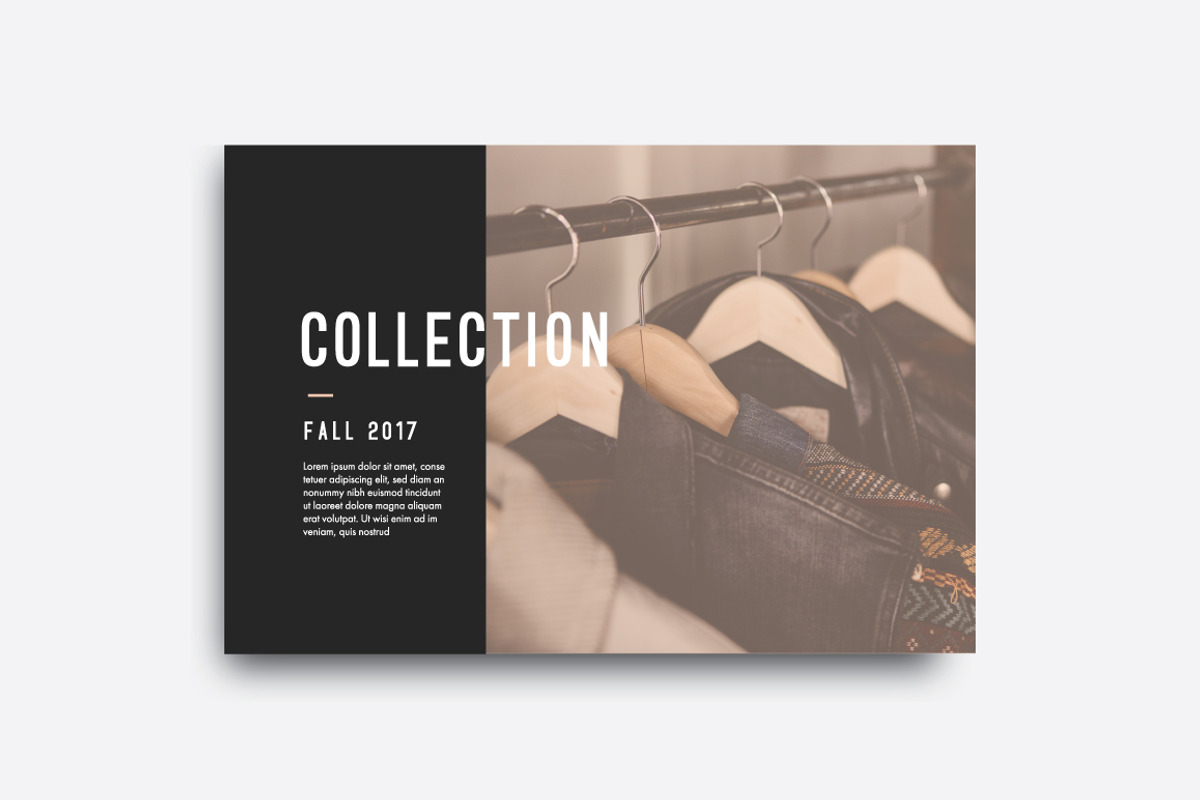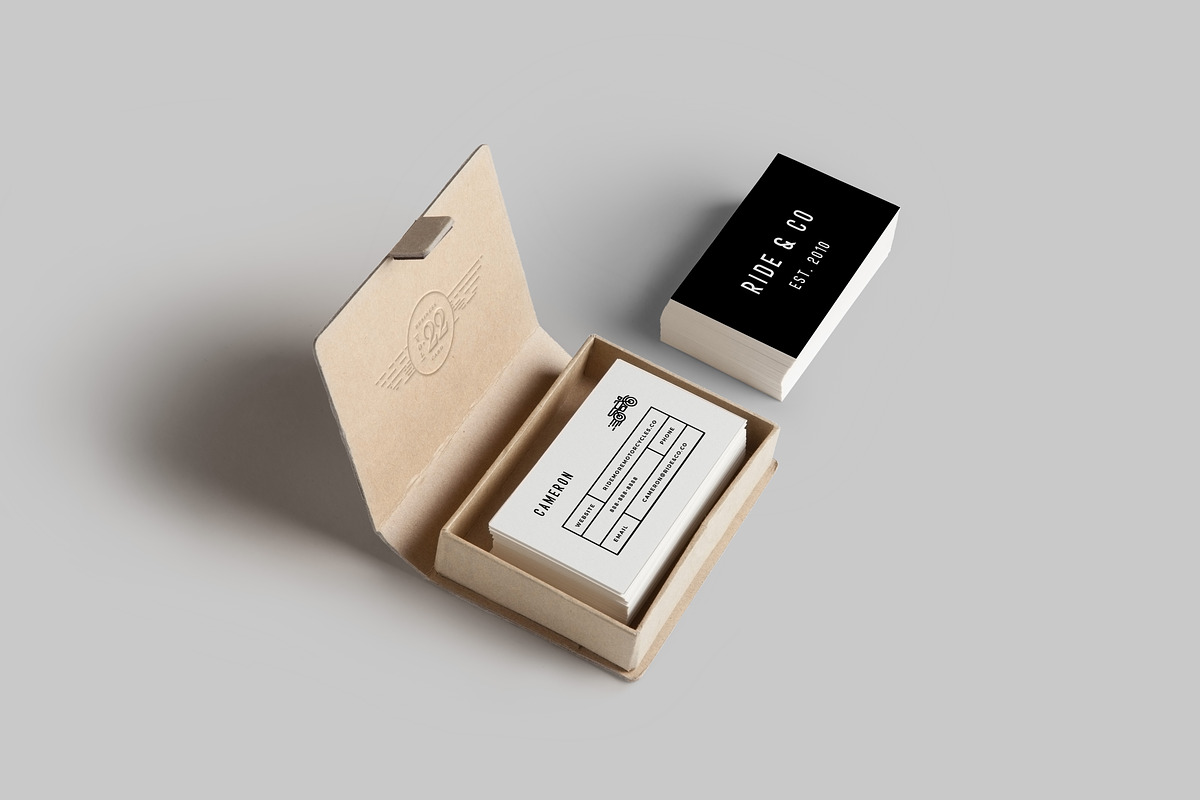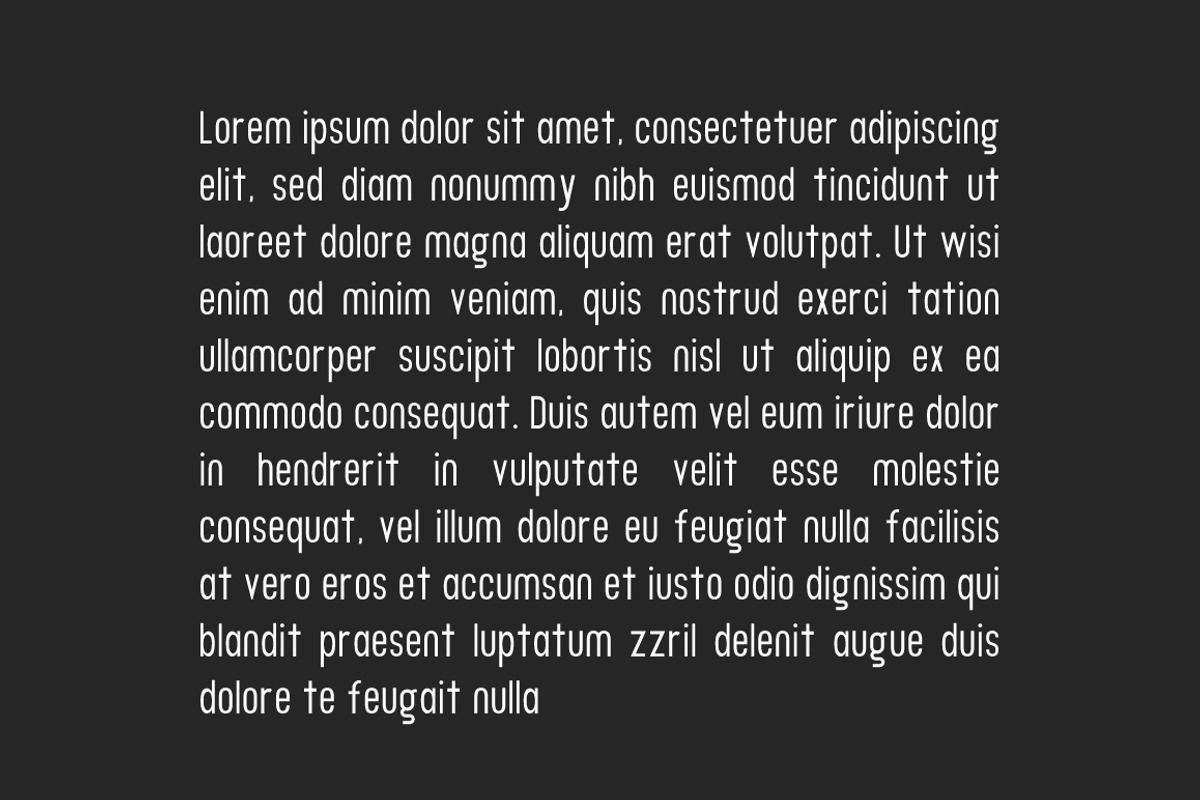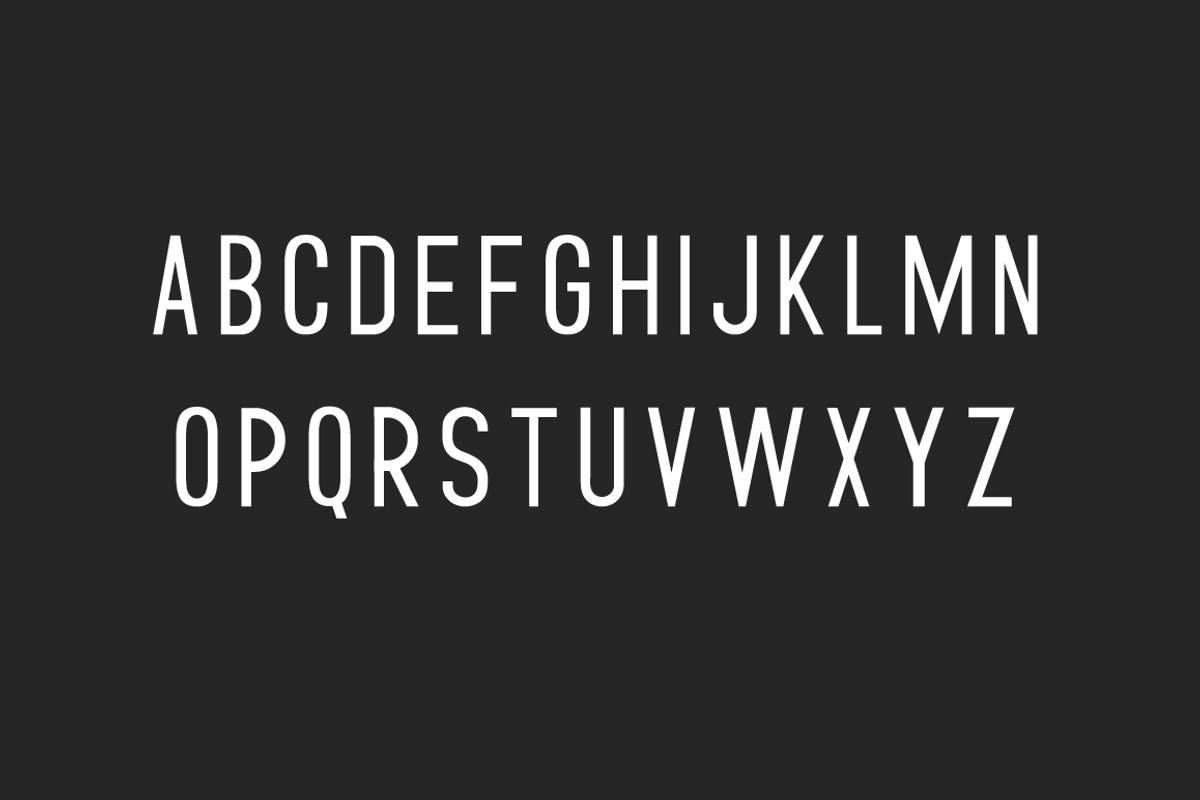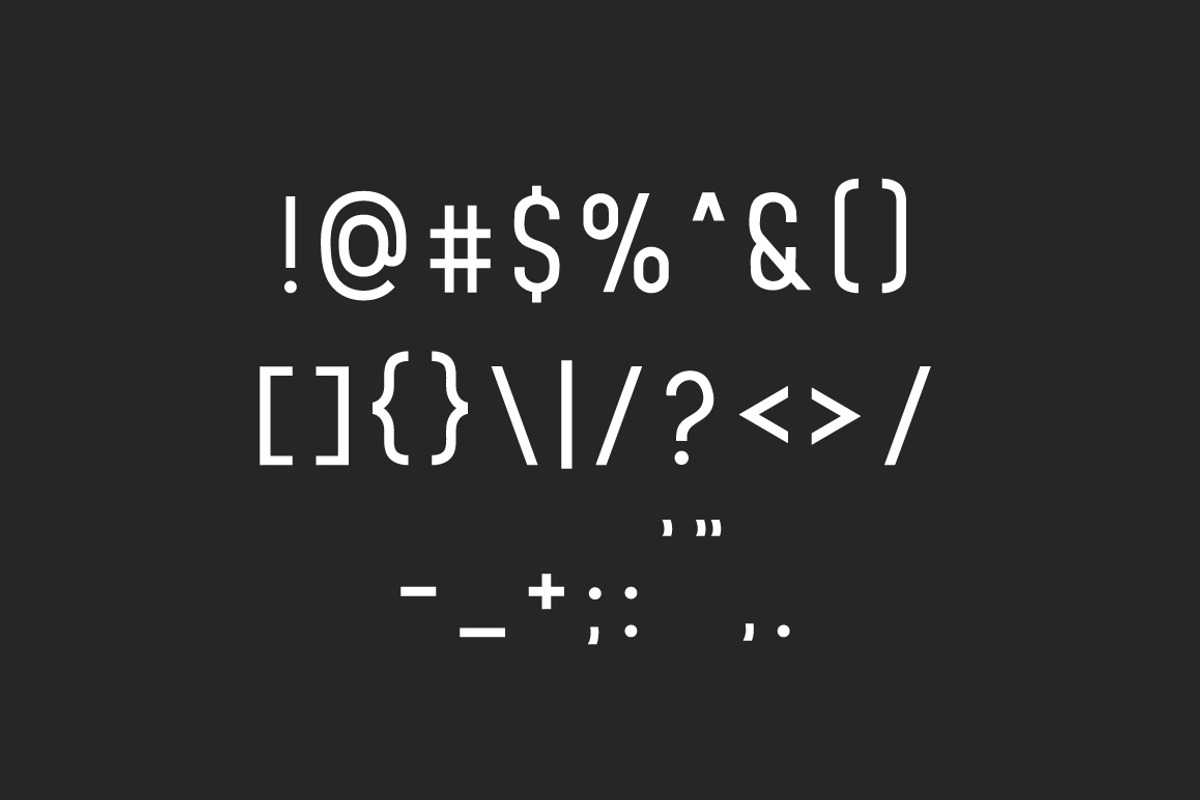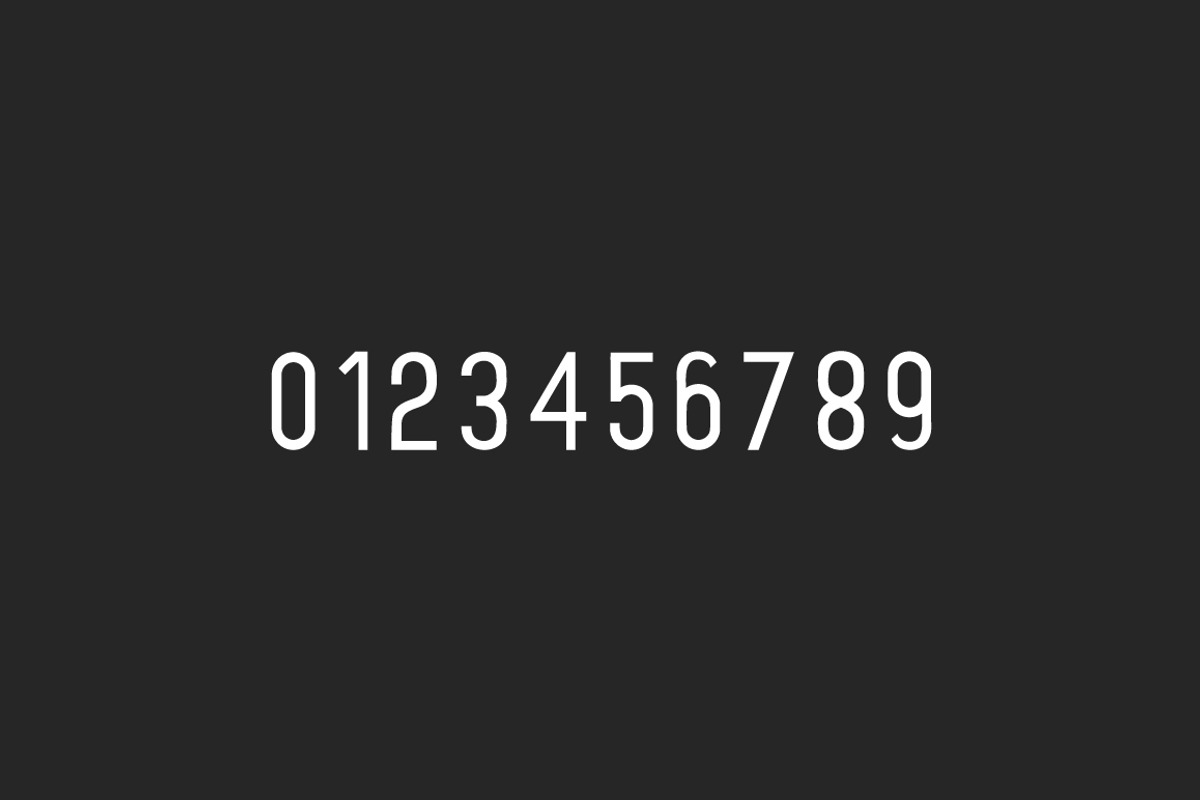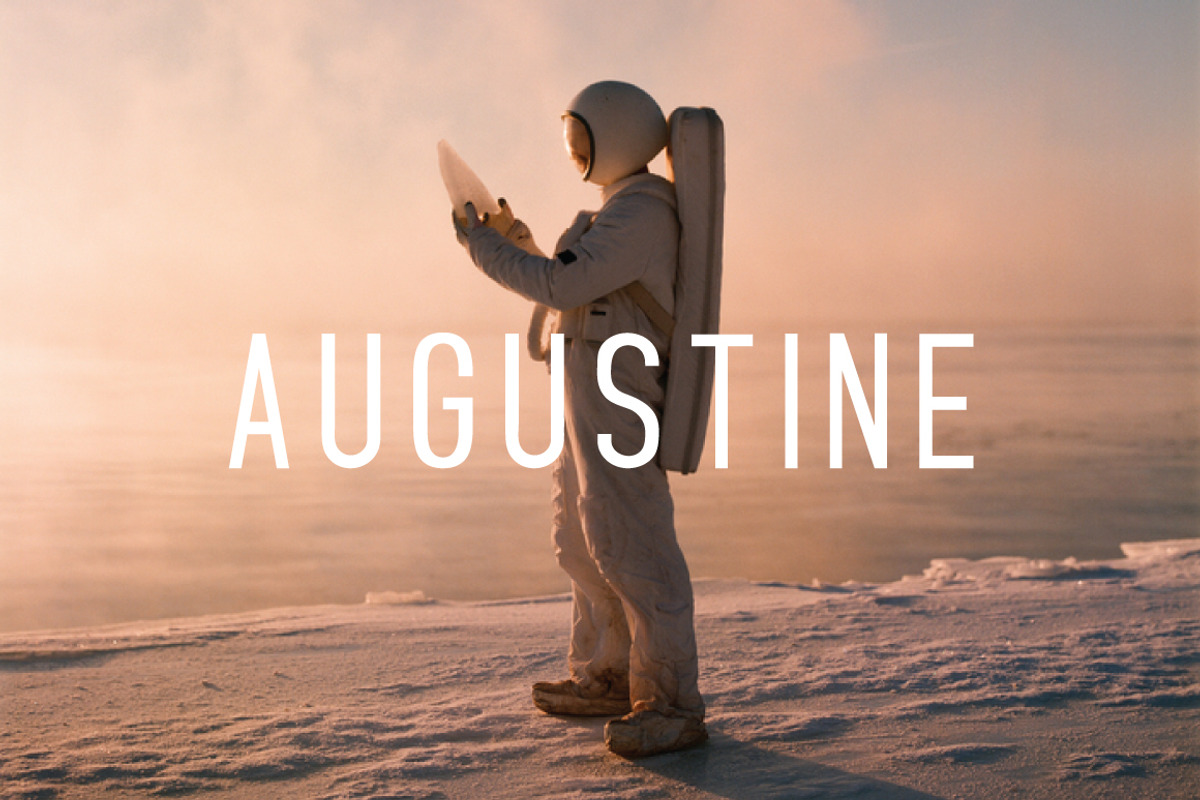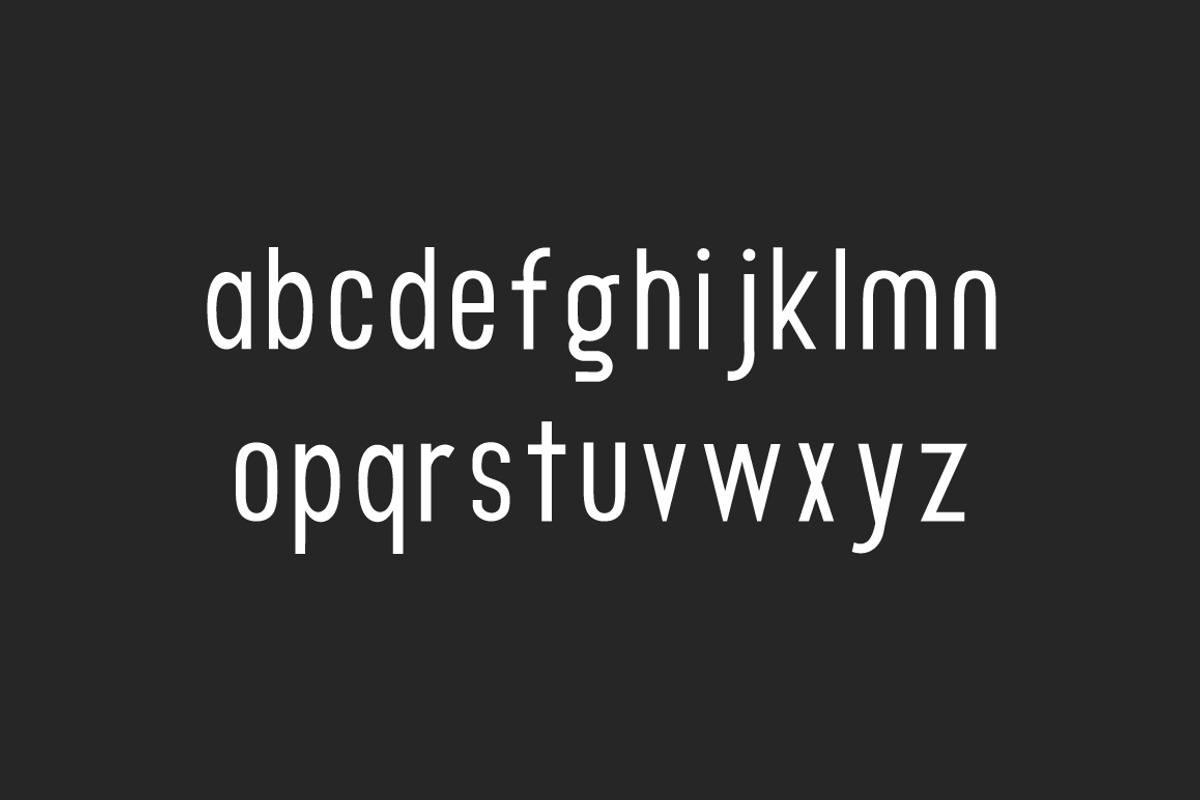
Augustine -Condensed Sans Serif Font
A handcrafted condensed sans serif font that is out of this world. A strong balance between strong pointed corners and smooth curves. Perfect for all purposes but especially for headlines. Pairs well with scripts and bold sans serif fonts.